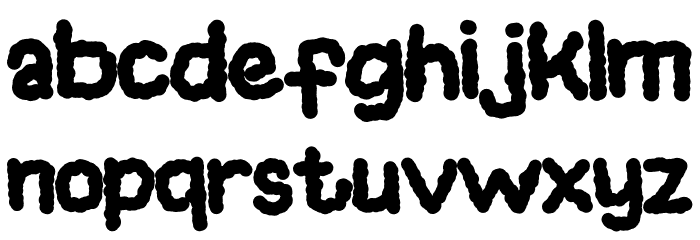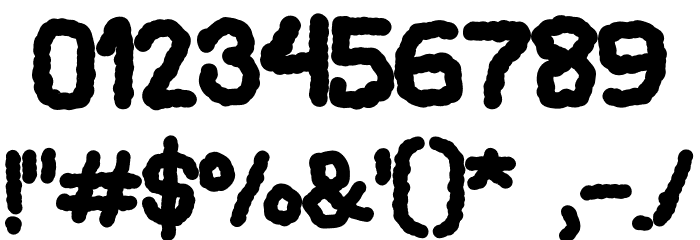
Cloudee Font
This playful and bold font features a unique, cloud-like texture that gives each character a fluffy and soft appearance. The letters are rounded with a consistent thickness, creating a cohesive and friendly look. The uppercase and lowercase letters maintain a uniform style, while the numbers and special characters are designed to match the overall aesthetic. The font's whimsical nature makes it ideal for projects that require a fun and approachable feel, such as children's books, playful branding, or creative posters. Its distinctive style ensures that it stands out, making it a great choice for eye-catching designs.
A playful, cloud-like font with a bold, rounded appearance.
- Font: Cloudee
- Proposed Projects: Children's books, playful branding, creative posters, and eye-catching designs.
- Overall Style: Playful, Whimsical